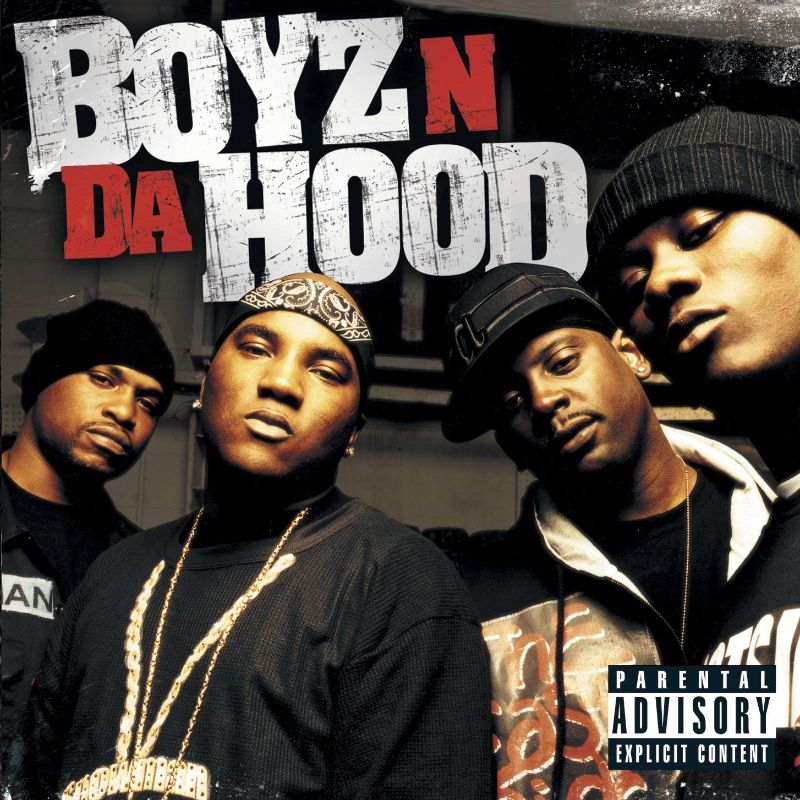
Read more boyz n the hood movie font. The film's logo — designed by graphic designer brent rollins — feels both nostalgic and avant garde.
Read more boyz n the hood movie font.
Boyz n the hood font generator. I'd appreciate it if anyone could help me on this one , or find something similar , i need it cause i want to make a.jpeg logo without the white background (transparent). The text generator section features simple tools that let you create graphics with fonts of different styles as well as various text effects; Click to find the best 25 free fonts in the gang style.
Boyz n da hood font. Categories, popular, designers, optional web font download and links to similar fonts. Imgflip supports all web fonts and windows/mac fonts including bold and italic, if they are installed on your device.
Boyz n da hood is an american southern gangsta rap group from atlanta, georgia. Parody, stuf, meme, fun, shirt. Corel draw, photoshop, adobe illustrator, cricut, design space, silhouette cameo.
October 18, 2021 circle font letter word. Read more boyz n the hood movie font. Boyz n da hood font.
Boyz n the hood movie font. Read more old london font generator. Whether it's for your website, greeting card, or paper, mixfont puts font inspiration at your fingertips.
Boyz n the hood movie font. Any other font on your device can also be used. October 18, 2021 post a comment
Salyer font and slayer logo. Custom name boyz n the hood. Use it big and make a bold statement.
Boyz n the hood font. Every font is free to download! The film's logo — designed by graphic designer brent rollins — feels both nostalgic and avant garde.
I'm boyz 65 i know boyz 33. Read more old london font generator. Boyz n the hood movie font.
Boyz n the hood font. 1 png and optionally 1 ai, 1 pdf, 1 svg. October 18, 2021 post a comment
The film's logo — designed by graphic designer brent rollins — feels both. How to make a font 3d in illustrator. Boyz n da hood is the debut album by hip hop group released on june 21, 2005.
The film's logo — designed by graphic designer brent rollins — feels both. This display font is perfect for posters, and headings that need to be noticed. Boyz n da hood is the debut album by hip hop group released on june 21, 2005.